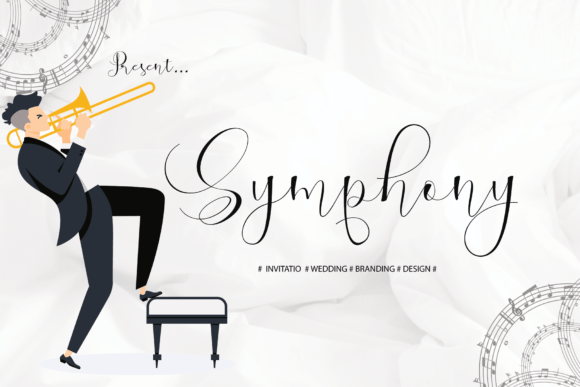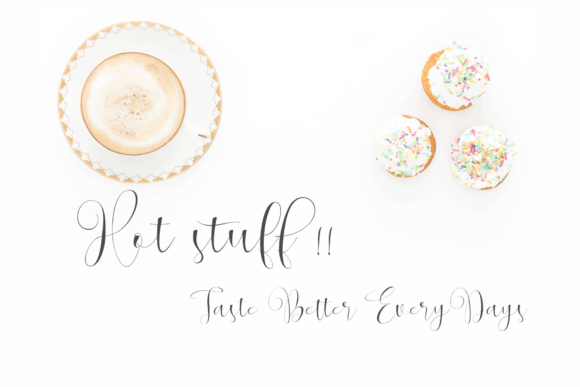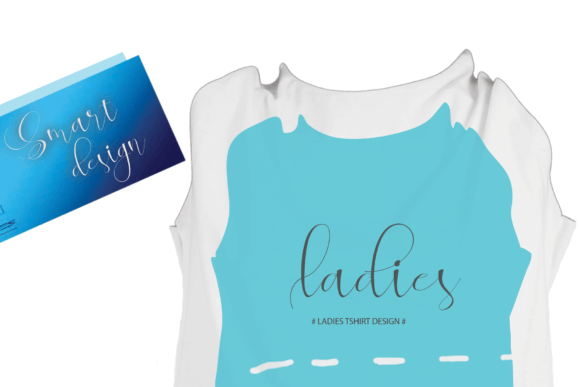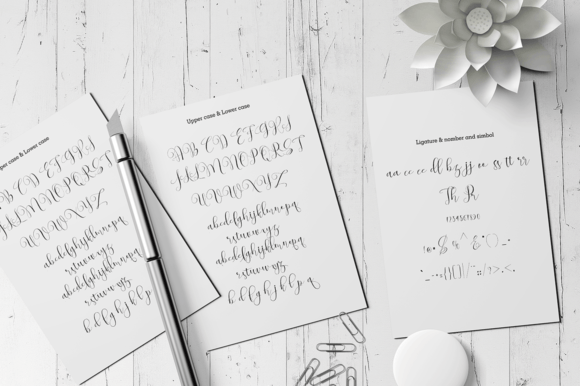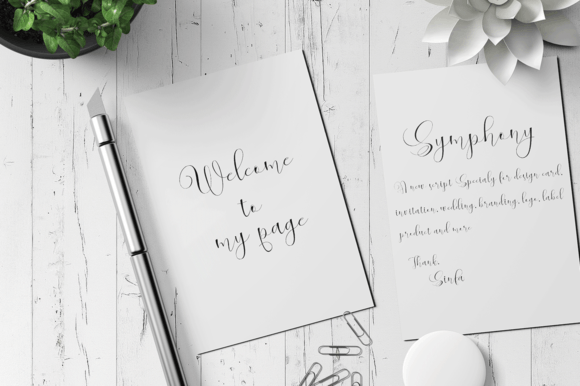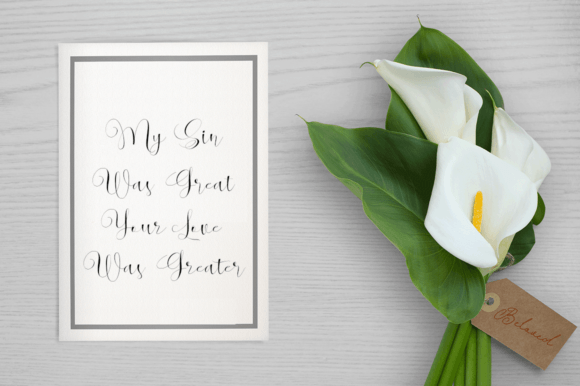
Symphony Font
About Symphony Font
Symphony is a font that exudes both charm and elegance, making it a stunning choice for a variety of design projects. Whether you’re working on wedding invitations, thank you cards, quotes, greeting cards, logos, business cards, or any other design that requires a handwritten touch, Symphony stands out as a versatile and visually appealing option.
The charm and elegance of Symphony are evident in its carefully crafted letterforms, creating a visual language that is both sophisticated and delightful. Its handwritten touch adds a personal and authentic feel to designs, making it well-suited for projects that aim to convey a sense of warmth and style.
In wedding invitations, Symphony contributes to a romantic and refined aesthetic. The font’s charm enhances the overall elegance of the invitation, creating a memorable and visually pleasing impression.
For thank you cards, quotes, and greeting cards, Symphony brings a handwritten touch that adds a level of intimacy and sincerity. The font’s versatility ensures that it can adapt to different sentiments and themes, making it suitable for a wide range of occasions.
In logos and business cards, Symphony adds a touch of elegance and uniqueness. The handwritten style creates a distinctive visual identity, making your branding materials stand out with a personalized and charming flair.
The fact that Symphony is PUA encoded is a valuable feature. This encoding allows easy access to all the glyphs and swashes, providing you with enhanced flexibility and creative freedom. You can effortlessly incorporate additional elements and variations, tailoring the font to suit the specific needs of your design.
In summary, Symphony is more than just a font; it’s a design asset that brings charm and elegance to a variety of creative projects. Whether you’re working on wedding-related materials, quotes, logos, or business cards, Symphony is ready to add a touch of sophistication and handwritten beauty to your designs.